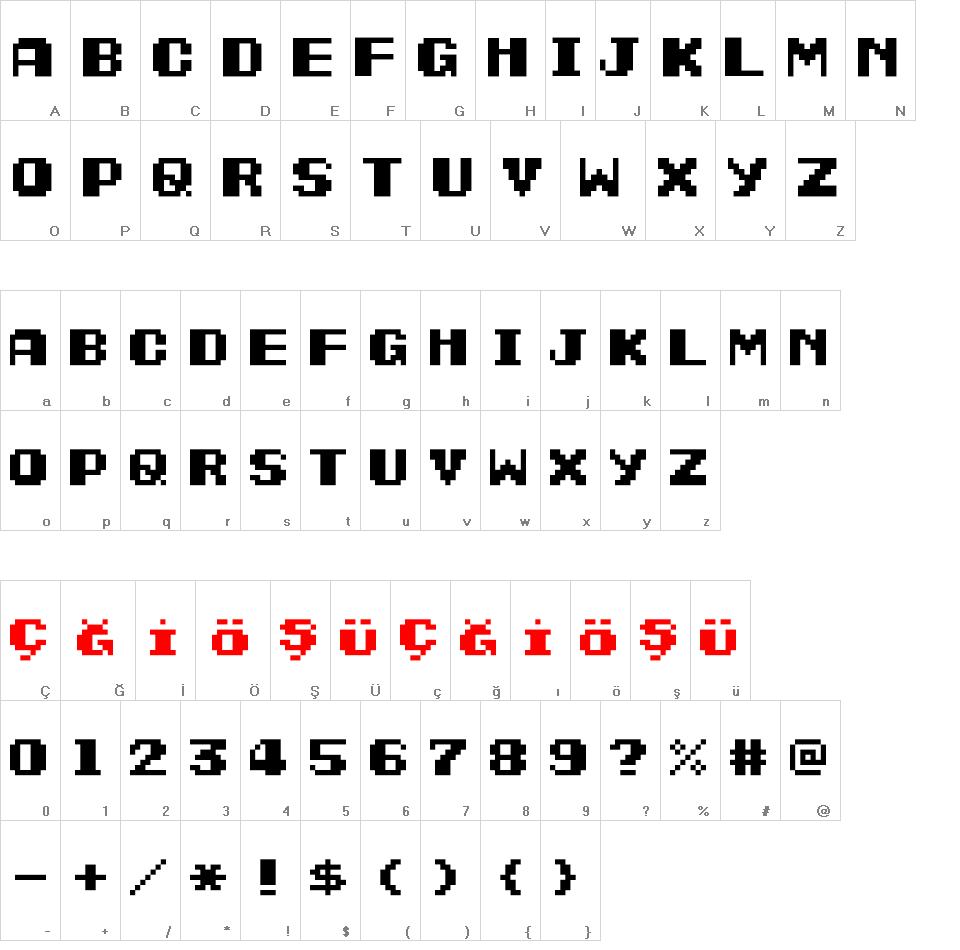
Contra font
Up, up, down, down, left, right, B, A, start! Oh, what's this? A font based on Konami's Contra, complete with Latin, Greek, and Cyrillic characters, with unicodes!? Well, it doesn't have 30 lives, but I hope you'll still enjoy it!